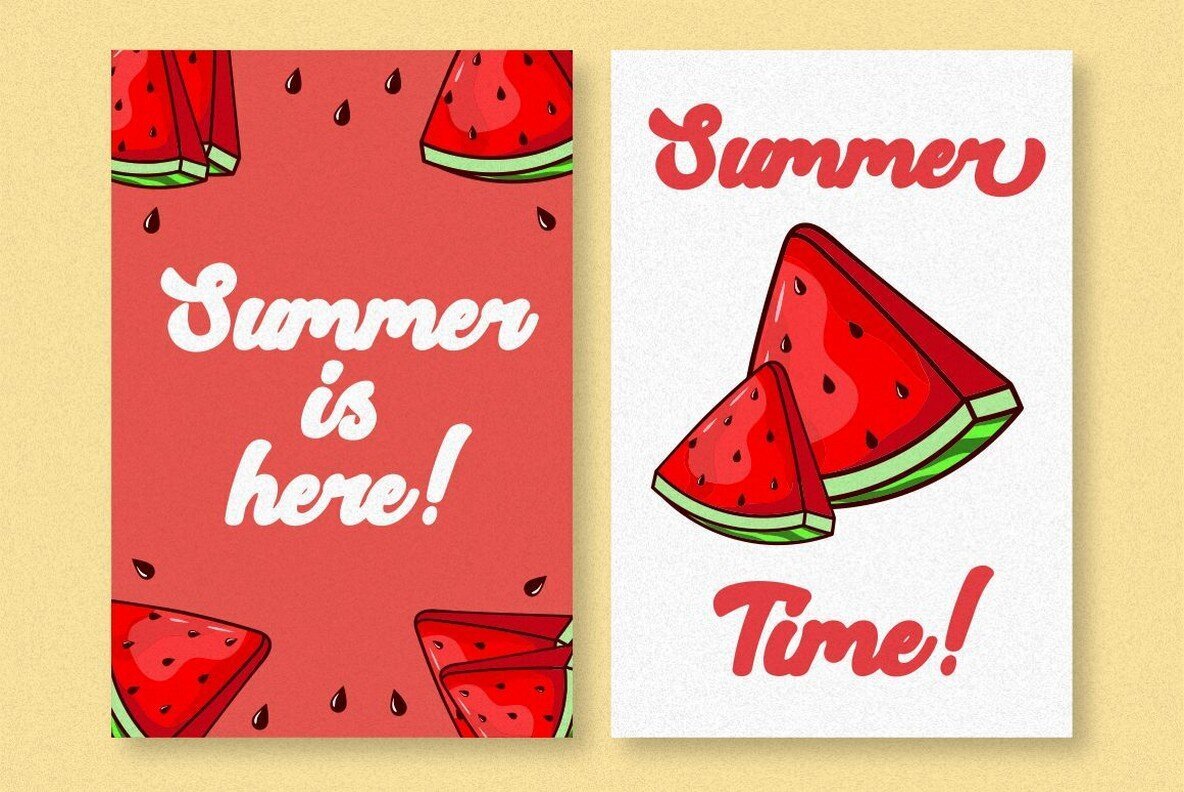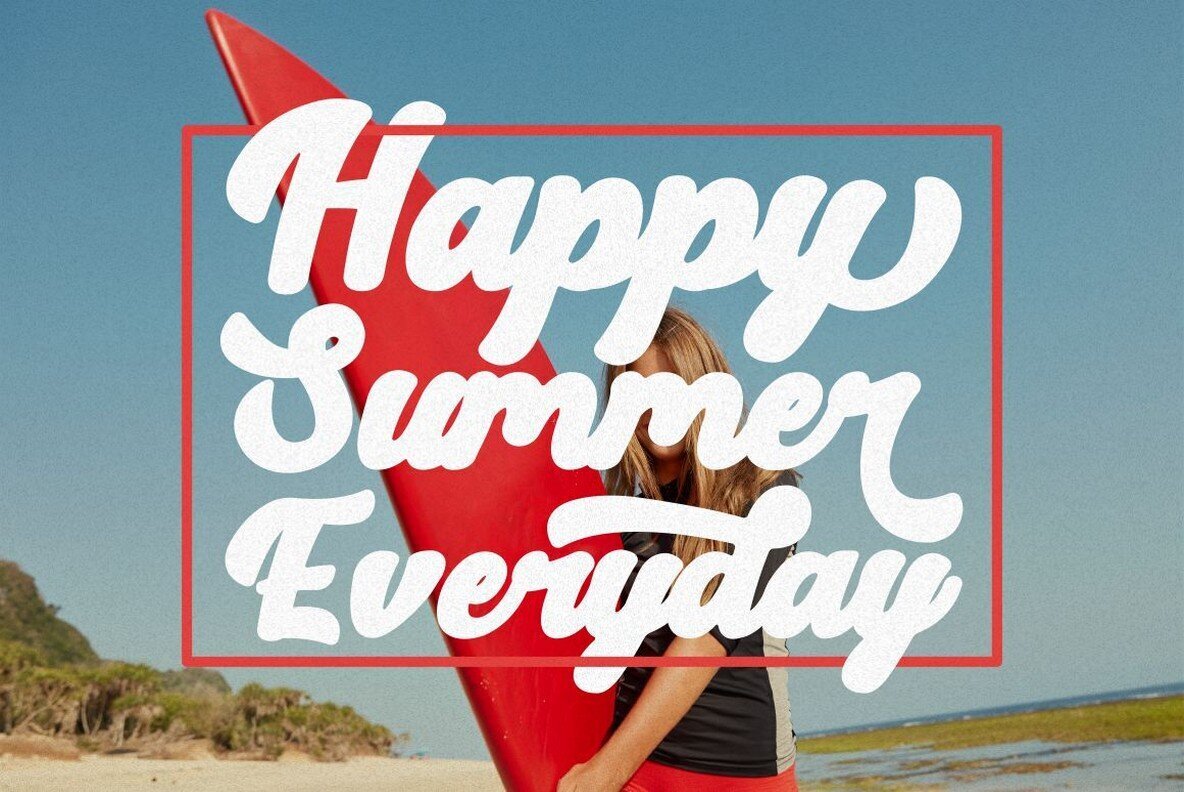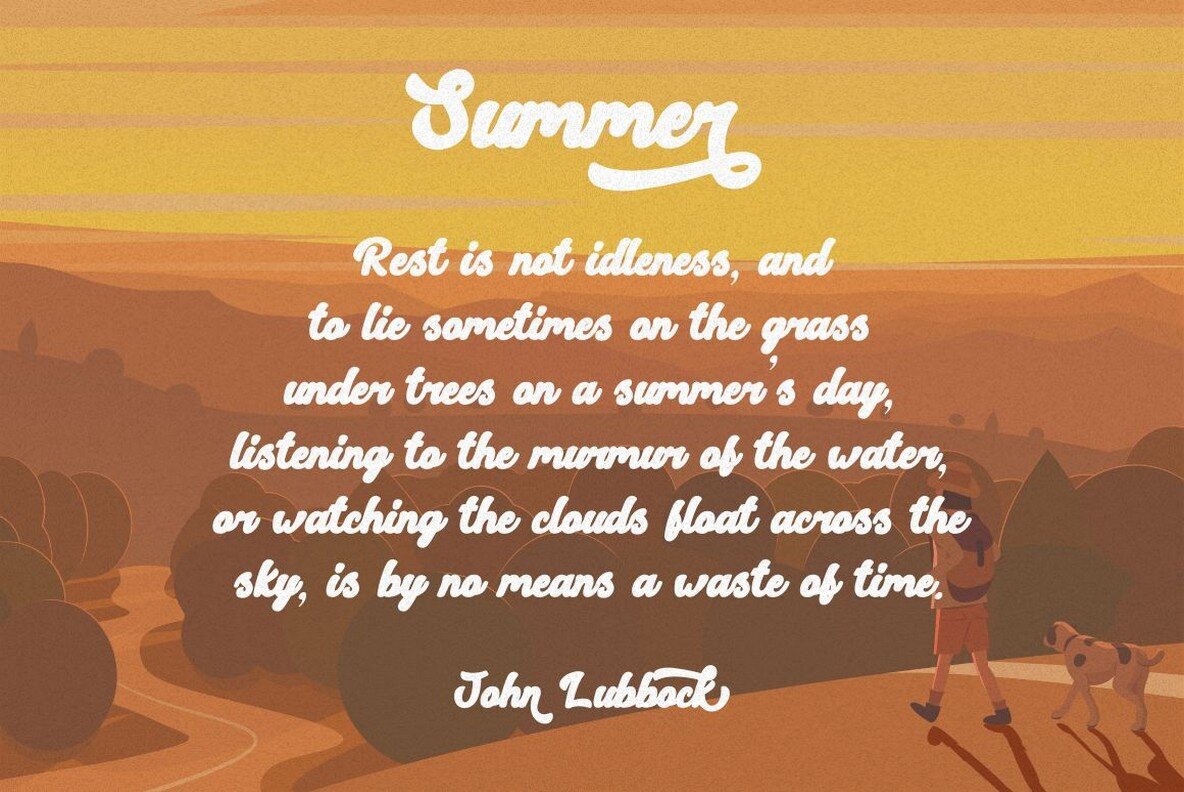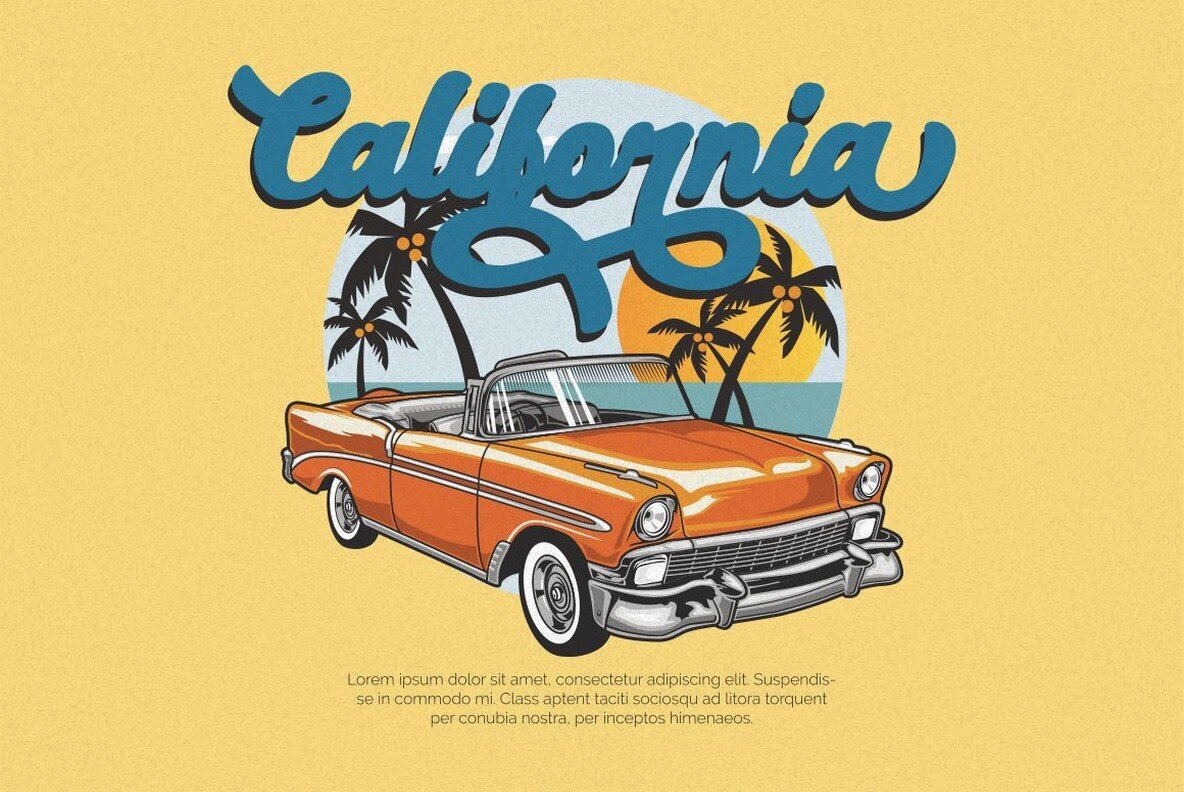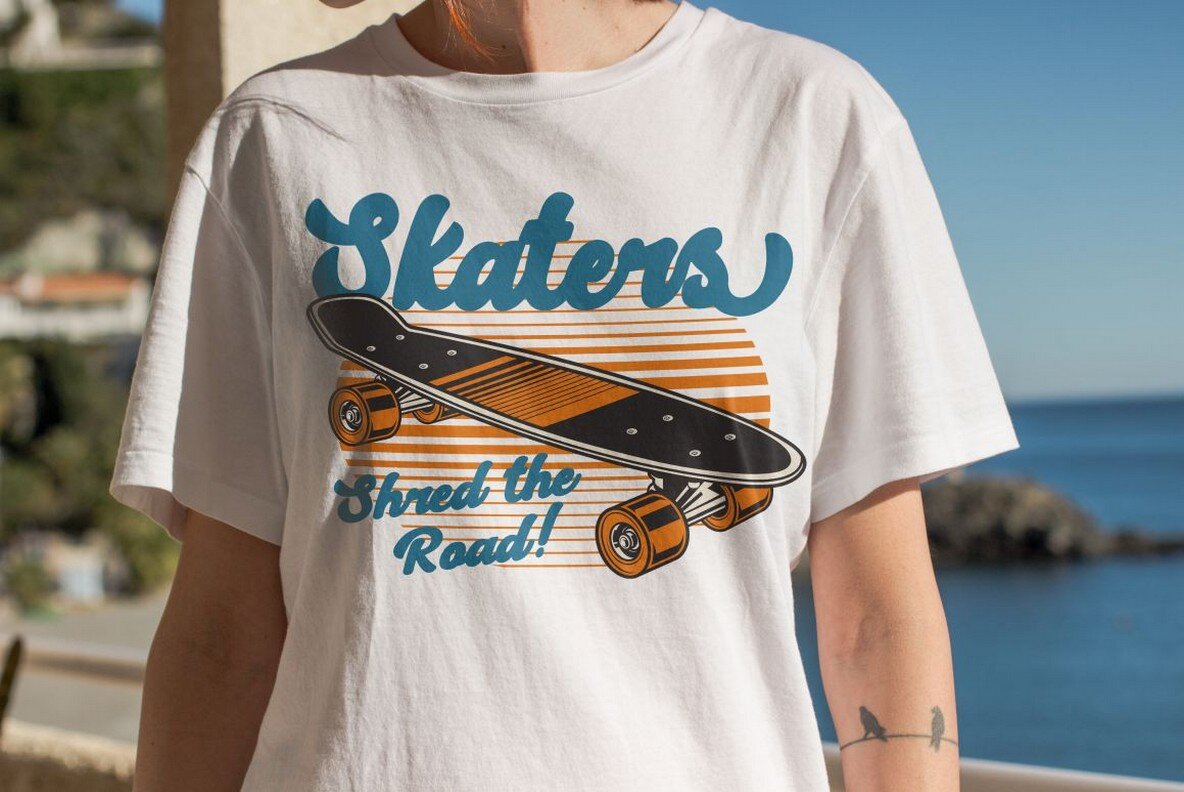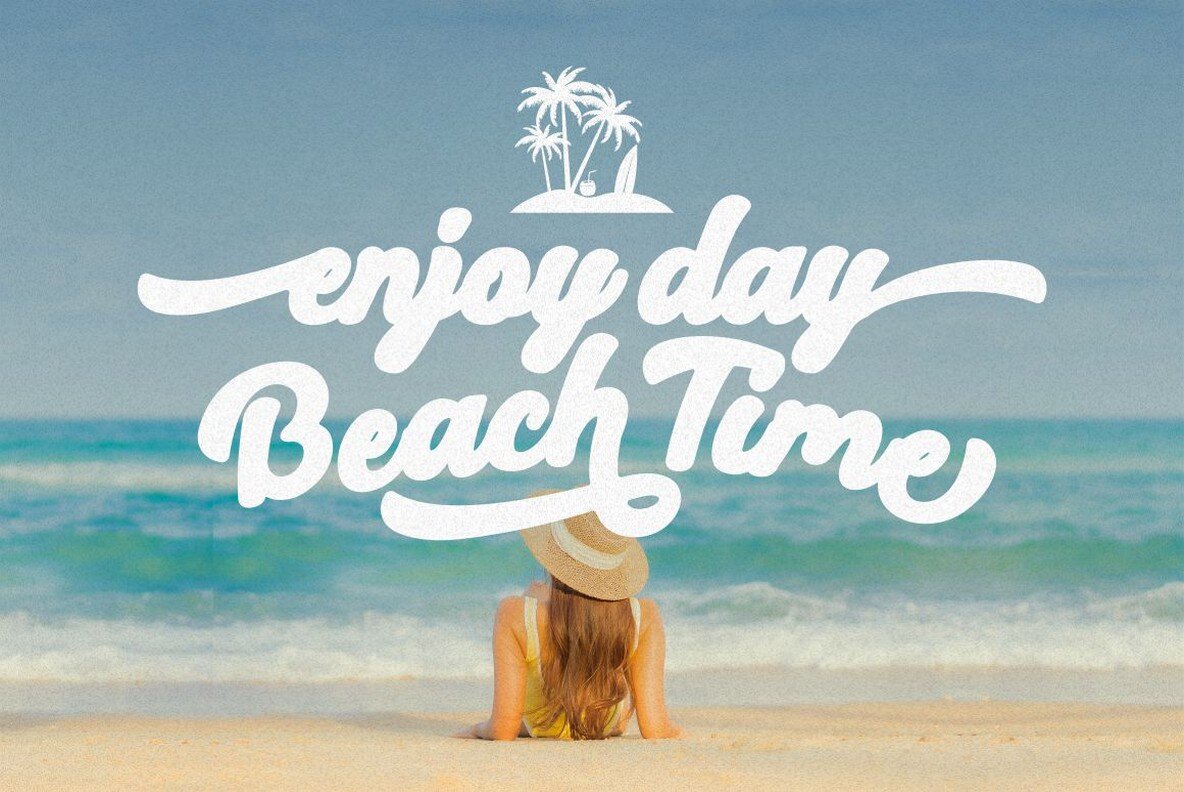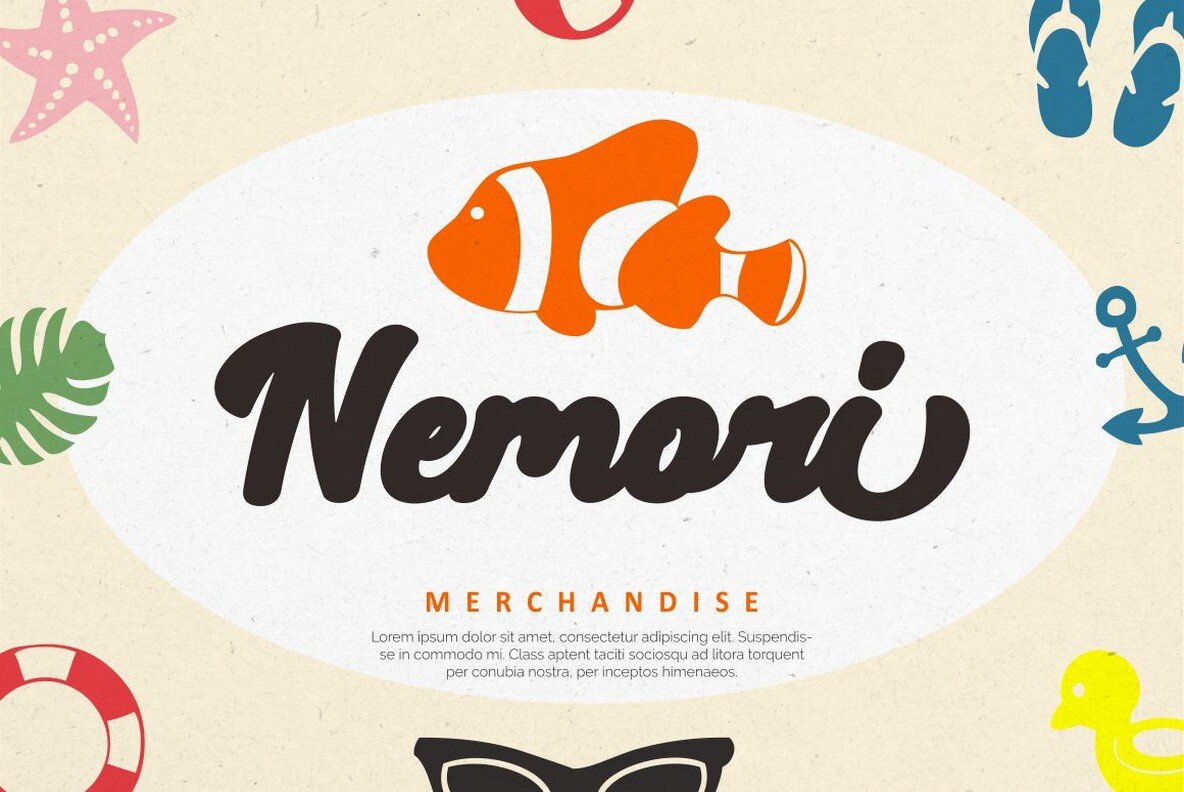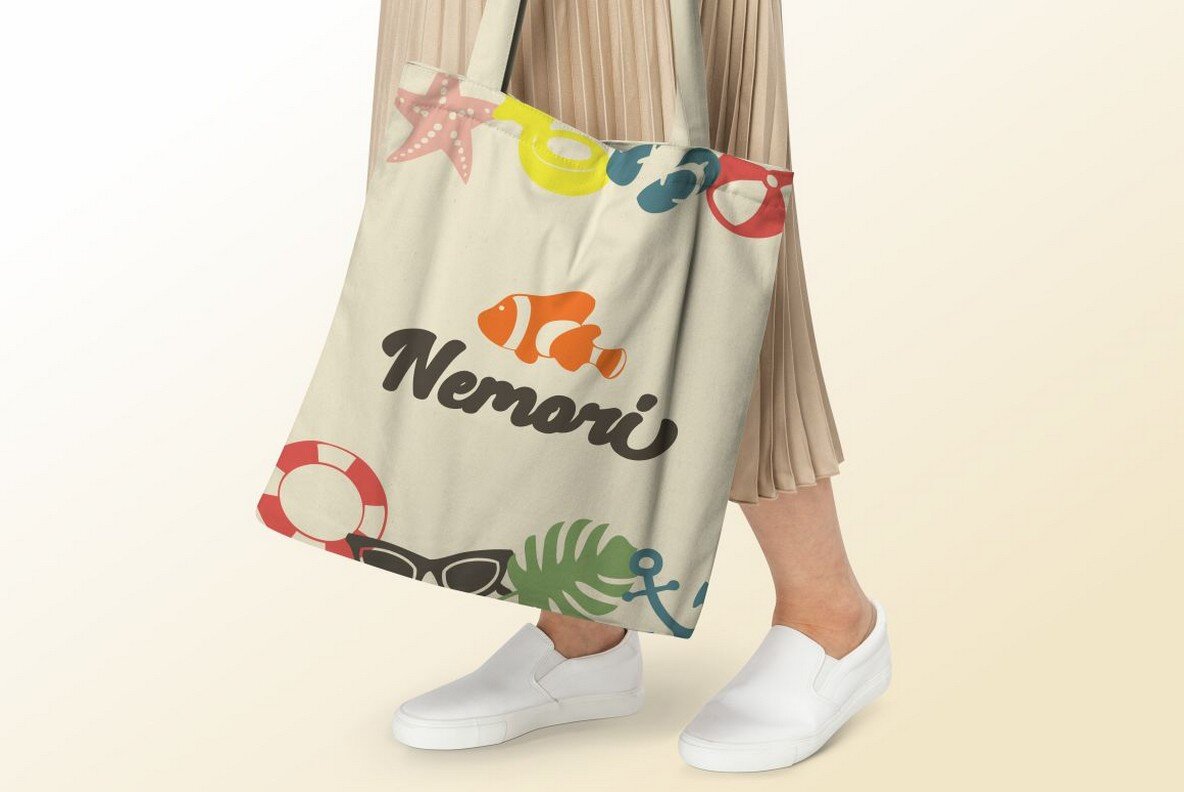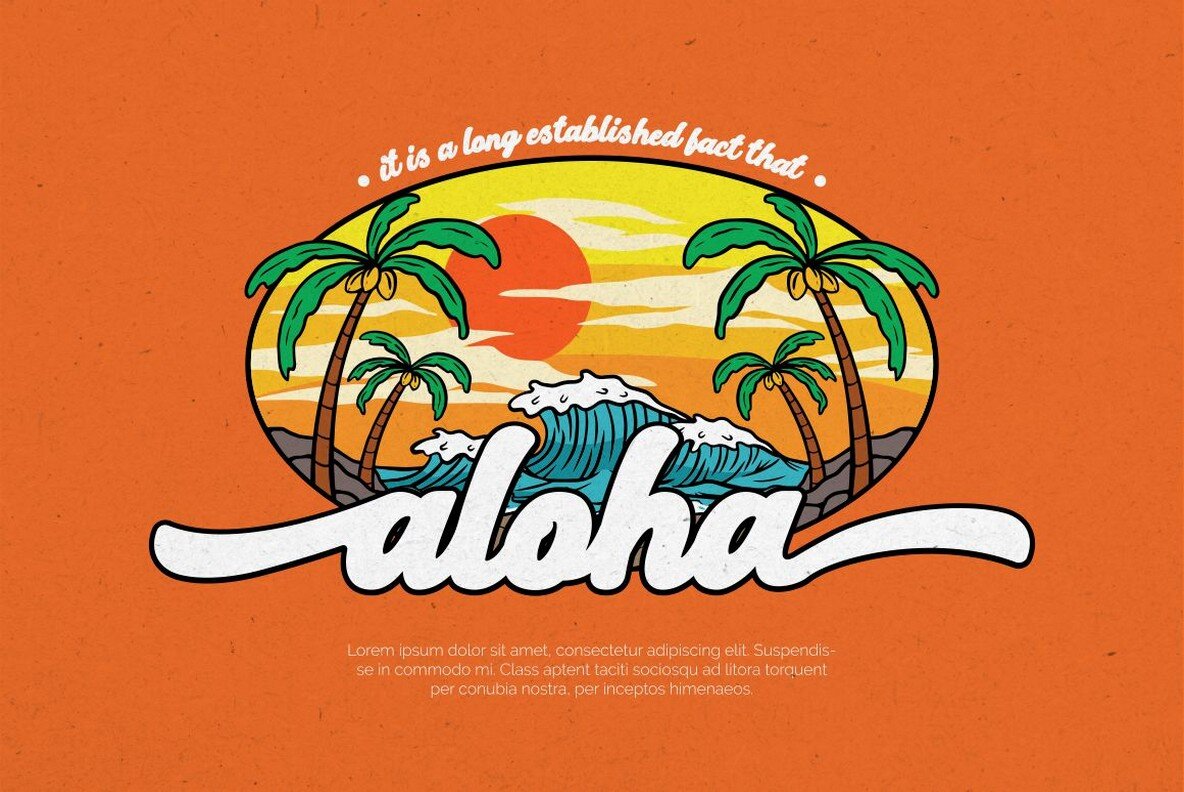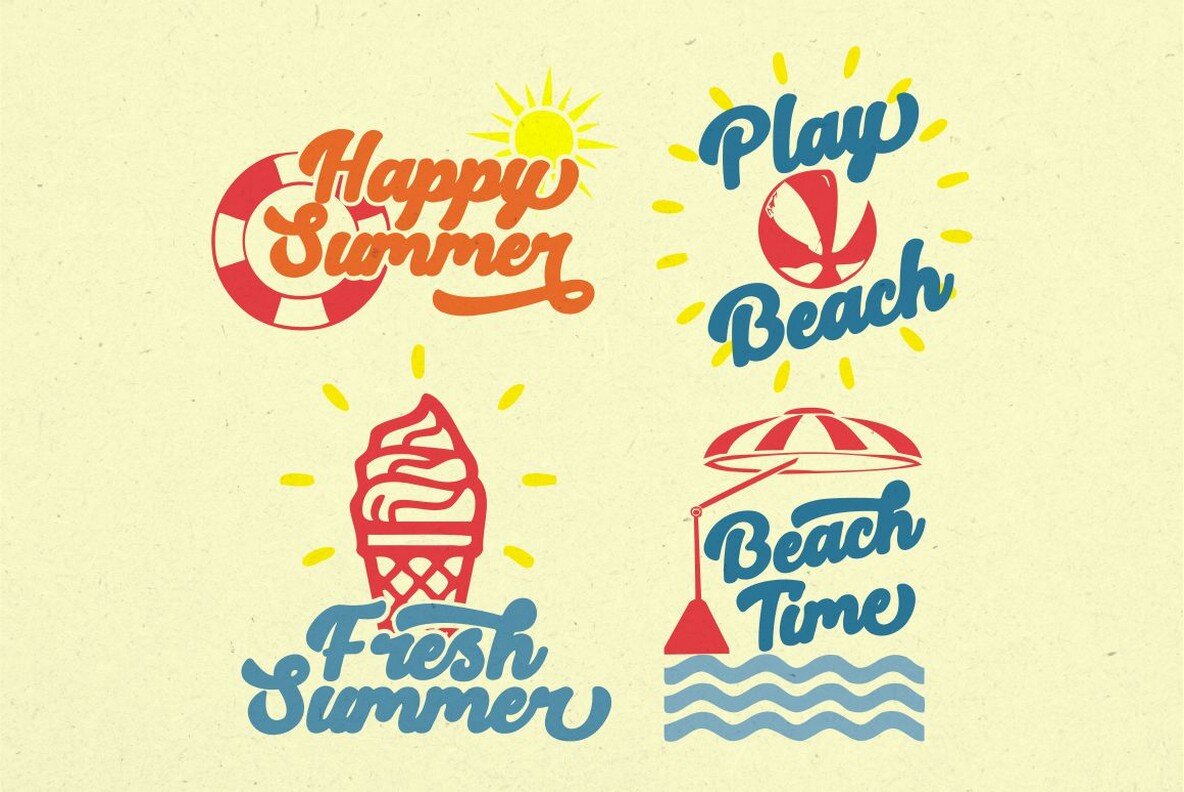
Retro Summer Font
Retro Summer
Retro Summer brings a blend of vintage charm and aesthetic opulence. Perfect for a range of creative projects, this bold retro script font is designed to enhance your work with a touch of nostalgia and luxury. Ideal for logos, branding, posters, packaging, book covers, and apparel, it suits projects aiming for a retro or vintage feel.Retro Summer: Bold Retro Script with Vintage Flair
The Retro Summer font promises to bring a unique flair to any project, infusing it with a retro aesthetic that captivates and inspires.